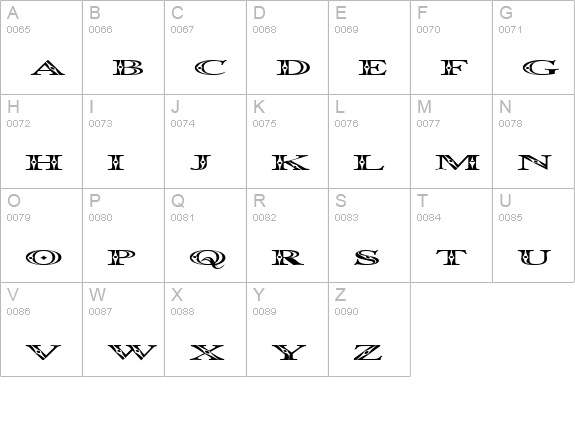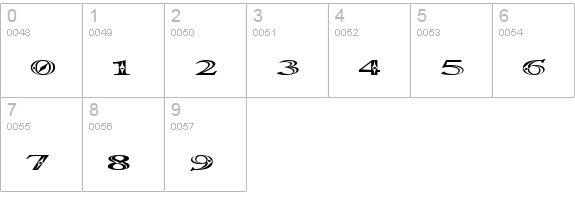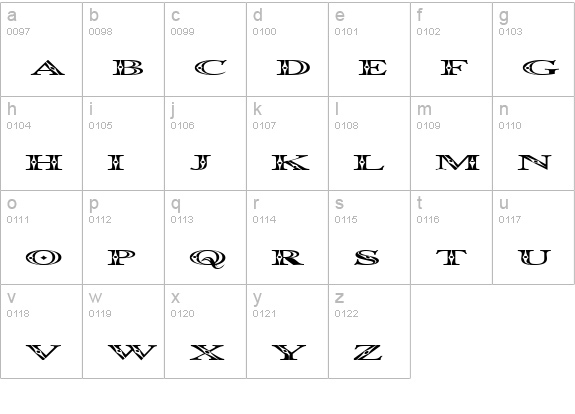
Occoluchi Spread Font Details
Occoluchi Spread is a modern and stylish font that exudes elegance and sophistication. With its clean lines and unique letterforms, this font is perfect for a wide range of design projects, from branding to packaging to editorial design. The wide spacing between letters gives Occoluchi Spread a distinct and eye-catching look that is sure to make your designs stand out. Best of all, Occoluchi Spread is available for free download at FontsMarket.com. Simply visit the website to access this stunning font and incorporate it into your next creative project. With Occoluchi Spread, you can add a touch of elegance and flair to any design, without having to spend a dime. Download it today and elevate your designs to the next level.